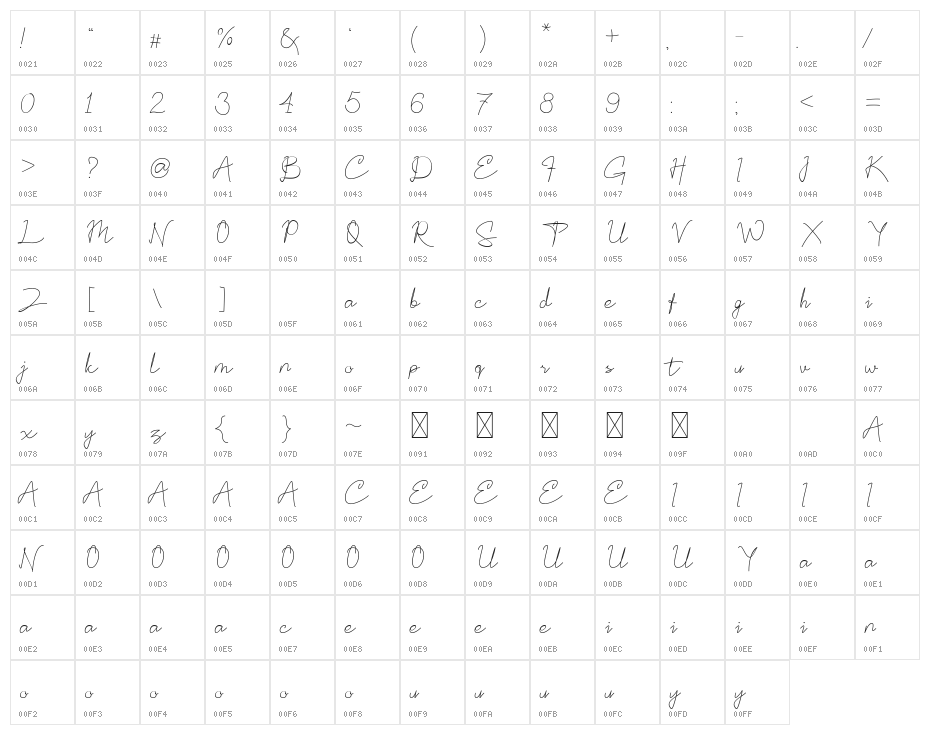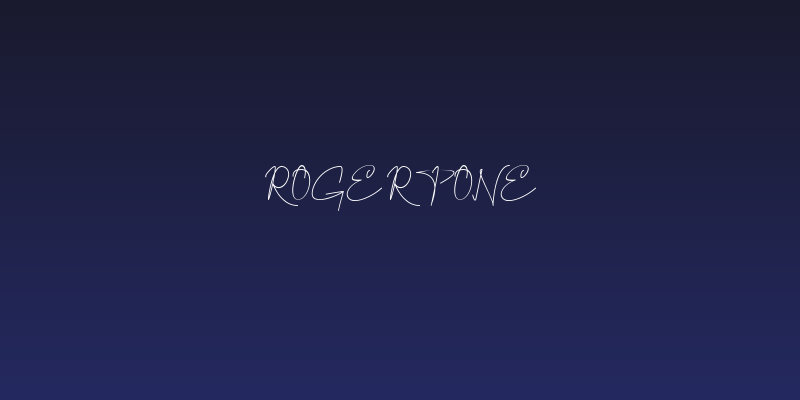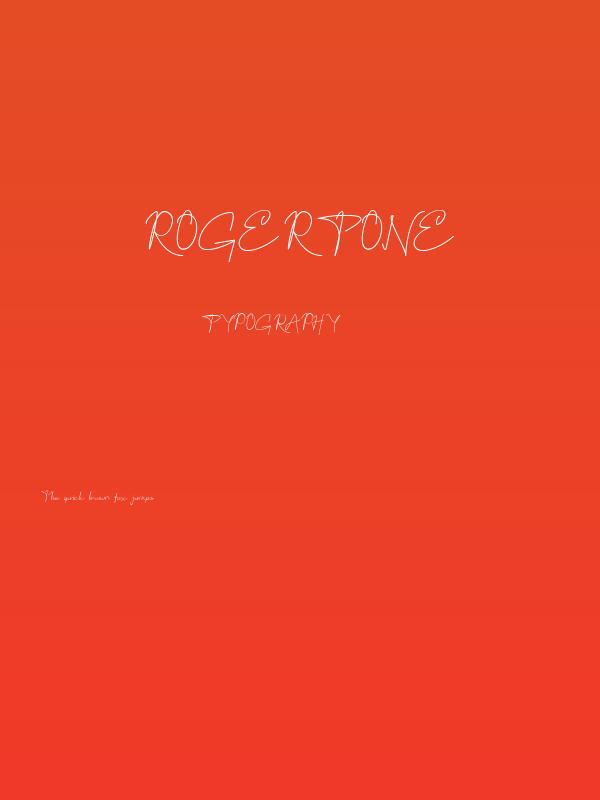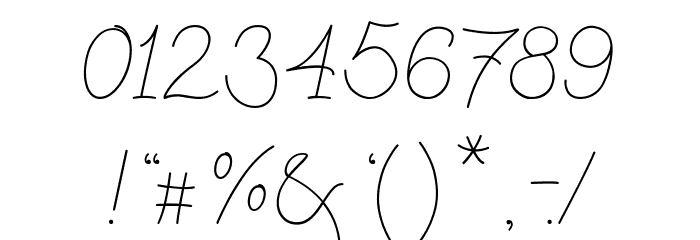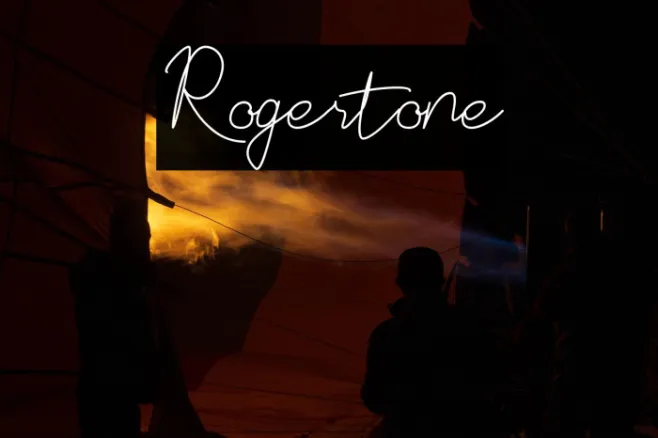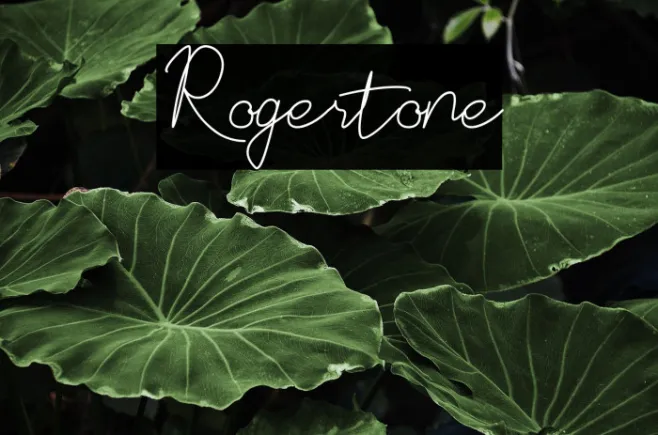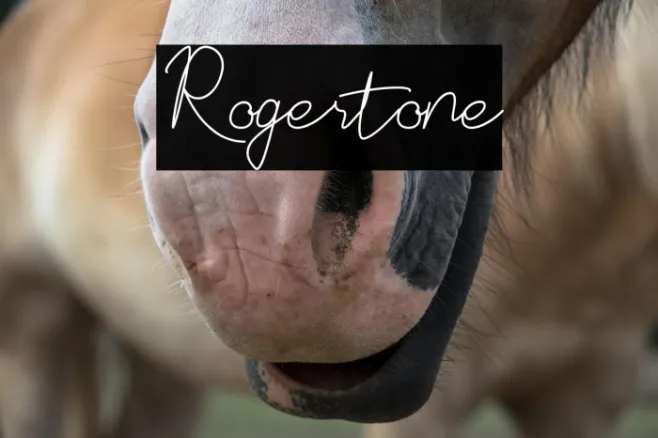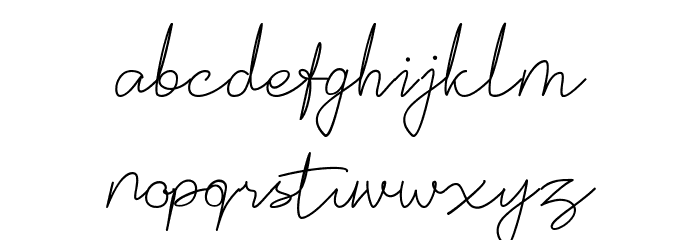
Rogertone Font
Rogertone Description
This font exudes a casual elegance with its flowing, cursive style. The letters are interconnected, creating a seamless and fluid appearance that mimics natural handwriting. The uppercase letters are slightly more ornate, with graceful loops and curves, while the lowercase letters maintain a consistent, smooth flow. The numerals are clear and legible, maintaining the same handwritten aesthetic. Special characters are thoughtfully designed to match the overall style, ensuring a cohesive look across all text elements. This font is perfect for projects that require a personal touch, such as invitations, greeting cards, or branding materials that aim to convey warmth and approachability.
| Overall Style | Casual, Elegant |
| Use Case | Invitations, Greeting cards, Personal branding |
| Proposed Projects | Ideal for invitations, greeting cards, personal branding, and any project needing a personal, elegant touch. |